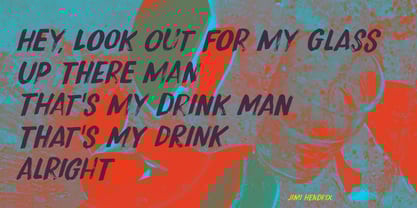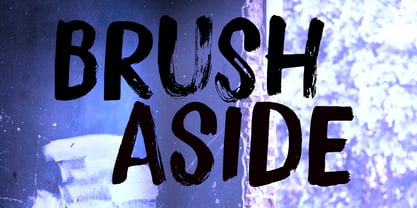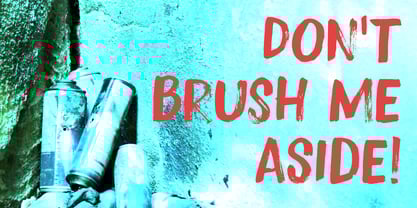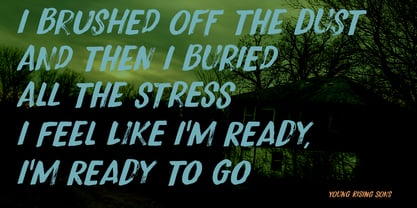
Brush Aside
von Hanoded
Die Schriftfamilie Brush Aside wurde von David Kerkhoff entworfen und von Hanoded veröffentlicht. Brush Aside enthält 2 Stile und Familienpaketoptionen.
I make quite a variety of fonts, but brush fonts are my absolute favourite. When I dip my brushes in that ink, I feel like I am really creating something special!
Brush Aside is such a brush font. Let’s say I was aiming for a different look, but this is what I put on paper at the end of the day.
Brush Aside is a display font. It comes with extensive language support and two sets of auto-rotating glyphs.
Hanoded is run by Dutchman David Kerkhoff. His fonts are a mishmash of styles, as he just creates whatever pops into his head. You will find a lot of brush fonts in his collection, as his favourite tools are brushes and Chinese ink, with cartoon style fonts and script fonts complementing his repertoire. Aside from making fonts, David occasionally guides tours in far-flung places, renovates his '30's house and tries reasoning with his wife and (teenage) kids. Not an easy task!